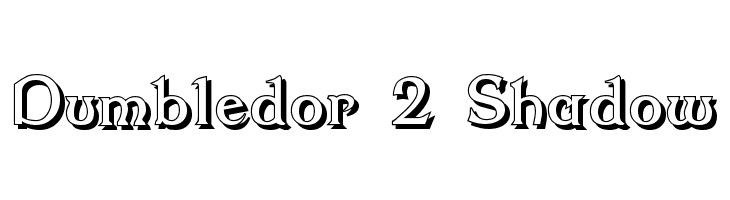
A bold, decorative font with a 3D effect and sharp serifs.
A textured serif font with horizontal line patterns and sharp serifs.
A bold, cut-up style font with sharp serifs and horizontal line detailing.
An elegant italic serif font with sharp, angular serifs and a dynamic style.
An outlined, fantasy-inspired font with sharp serifs and playful curves.
A whimsical, medieval-inspired font with italicized, angular serifs.
A bold, shadowed serif font with a dramatic and elegant style.
A sophisticated serif font with sharp serifs and high contrast, blending classic and modern styles.
A bold, medieval-inspired serif font with sharp, angular features.
A medieval-inspired font with sharp serifs and elegant curves.